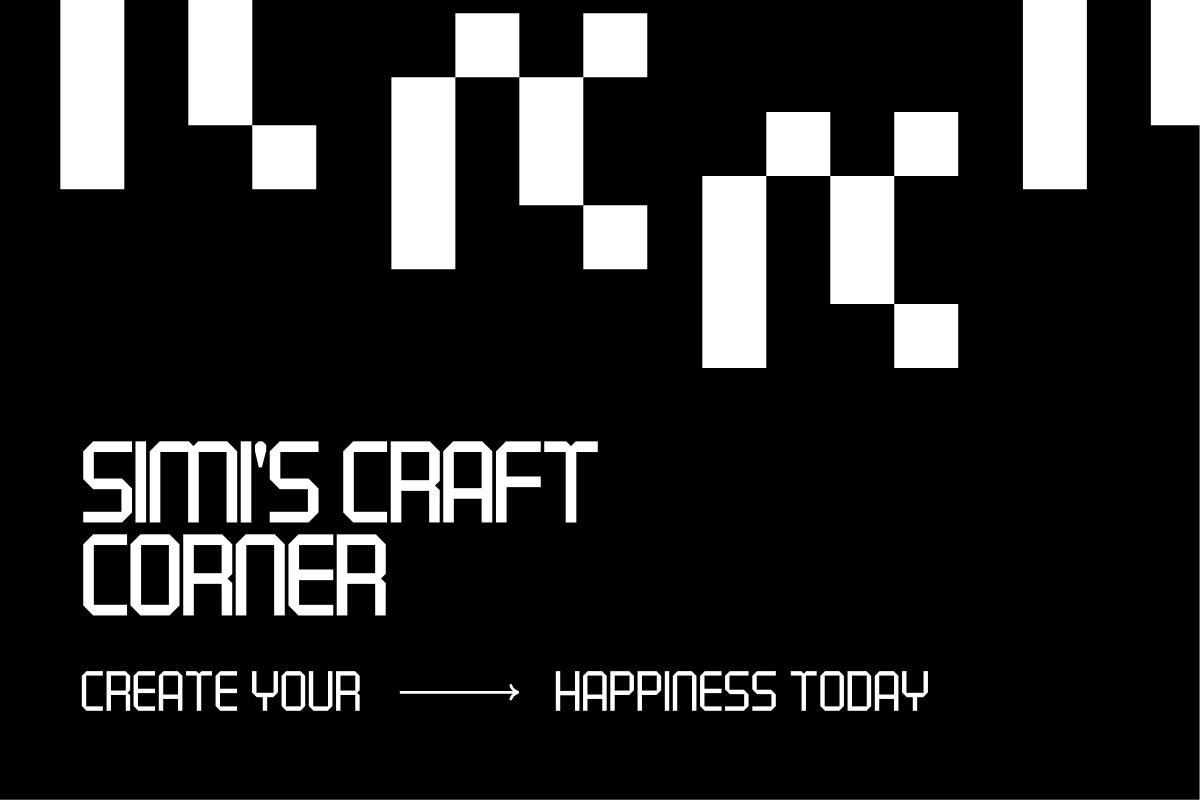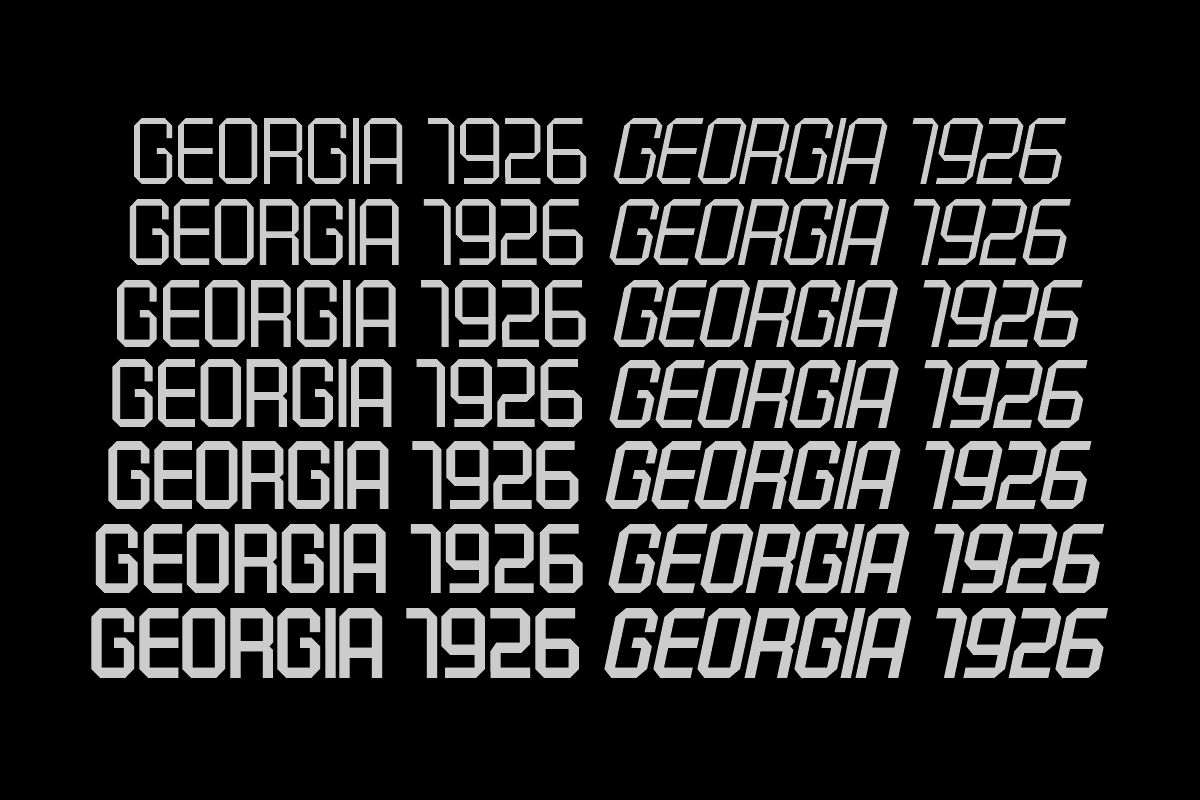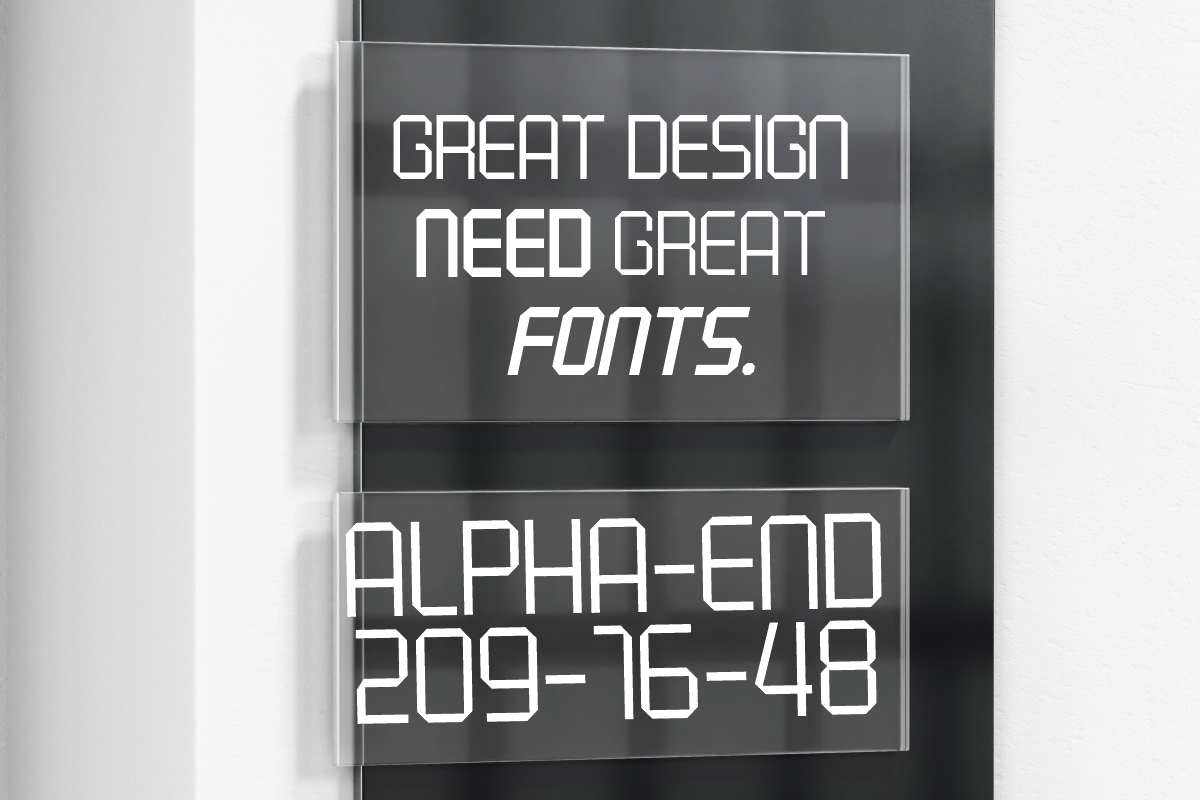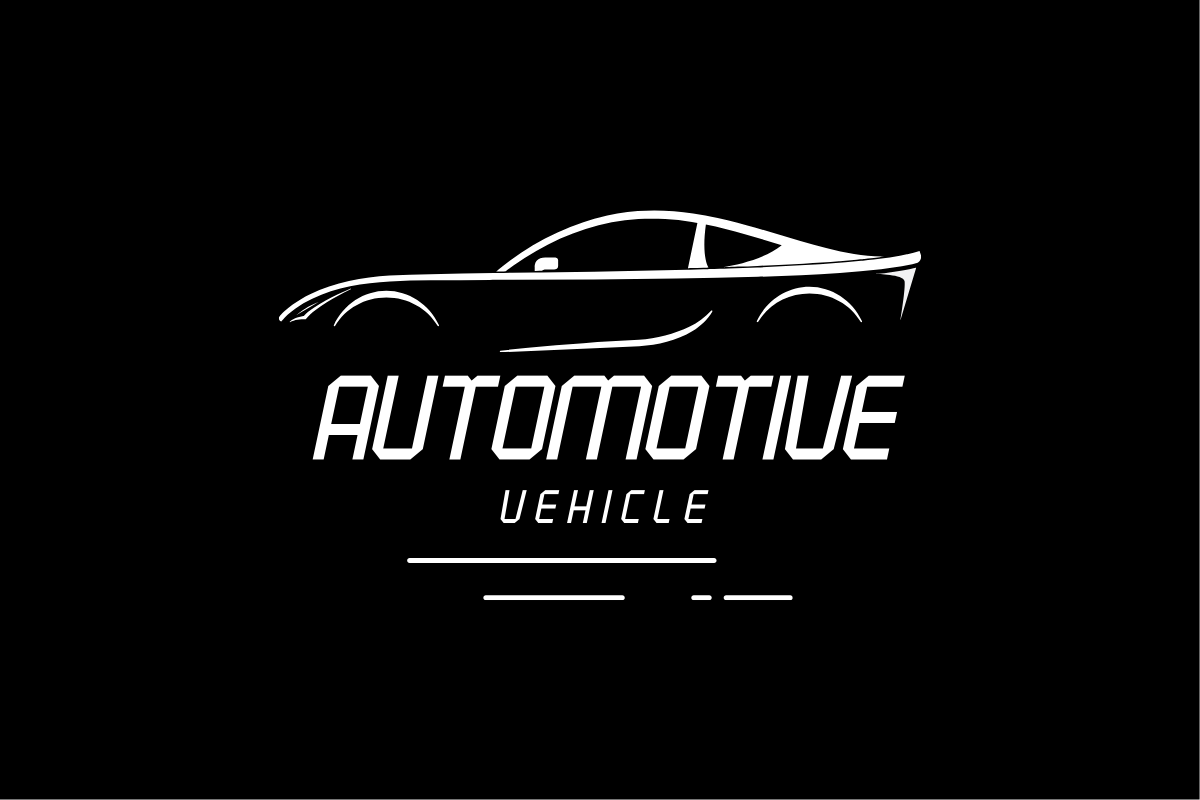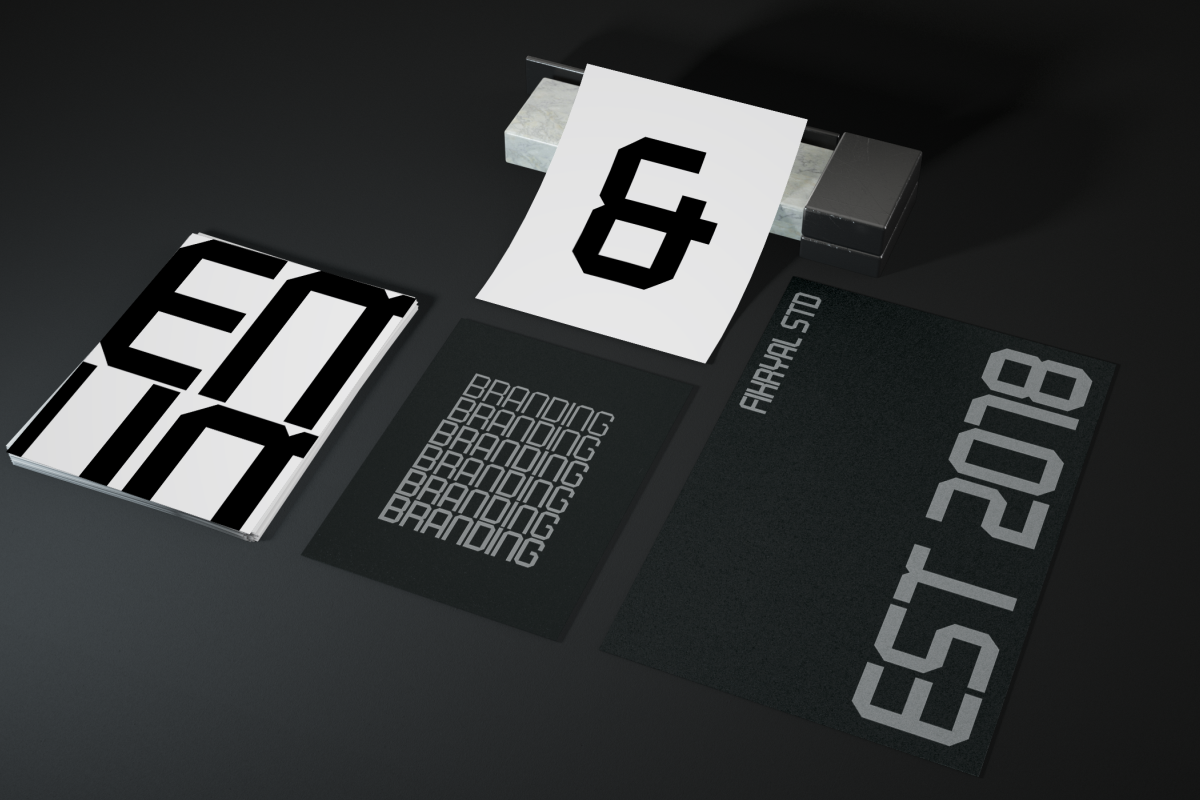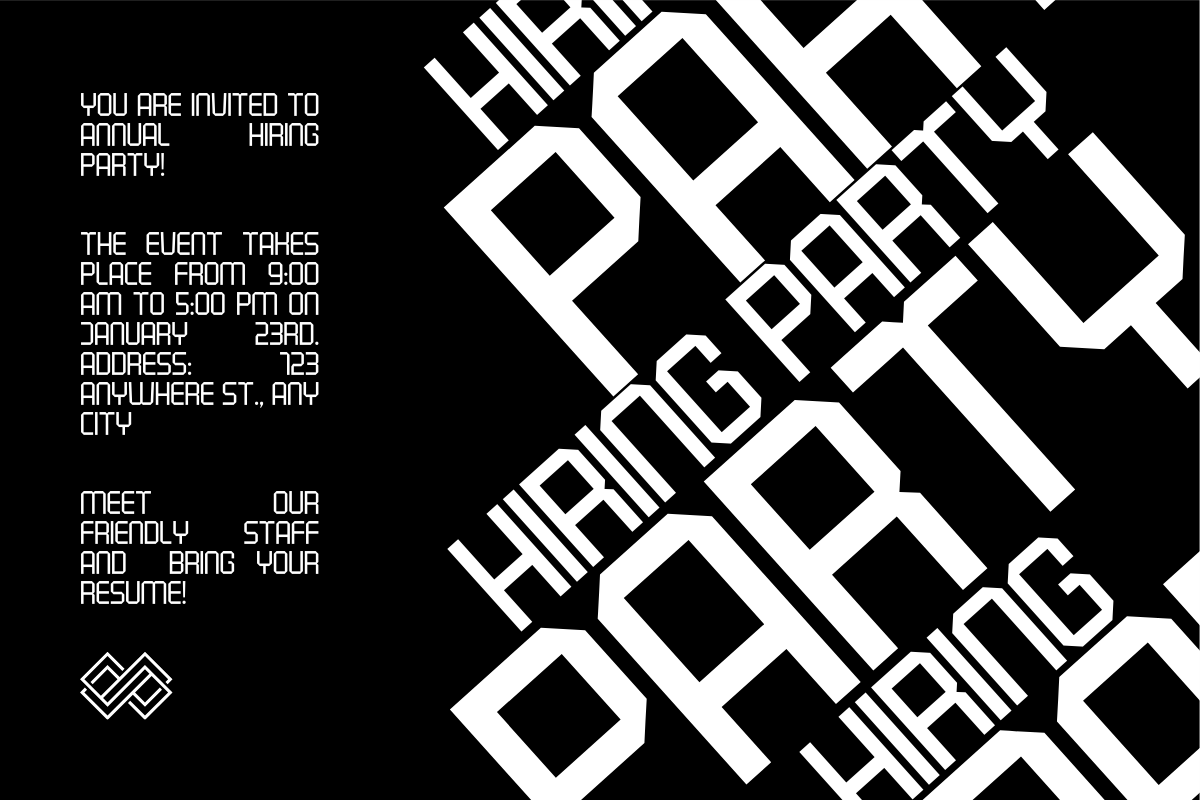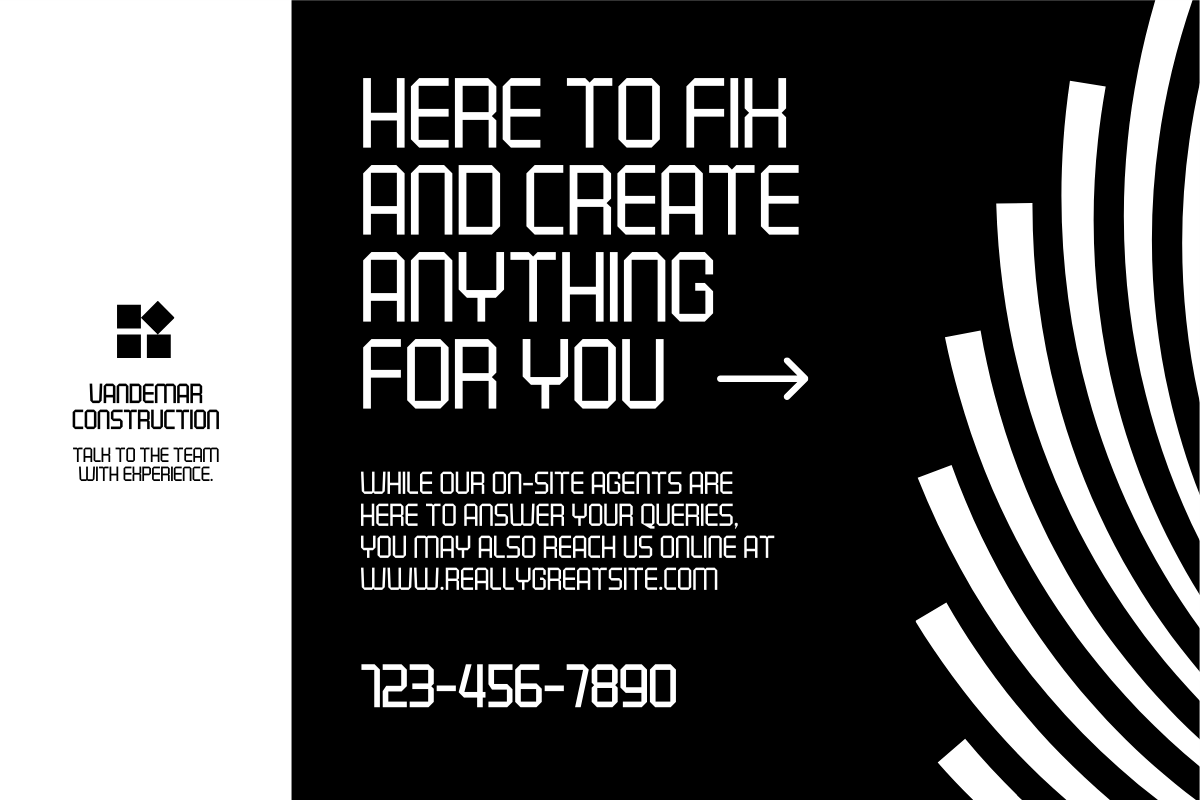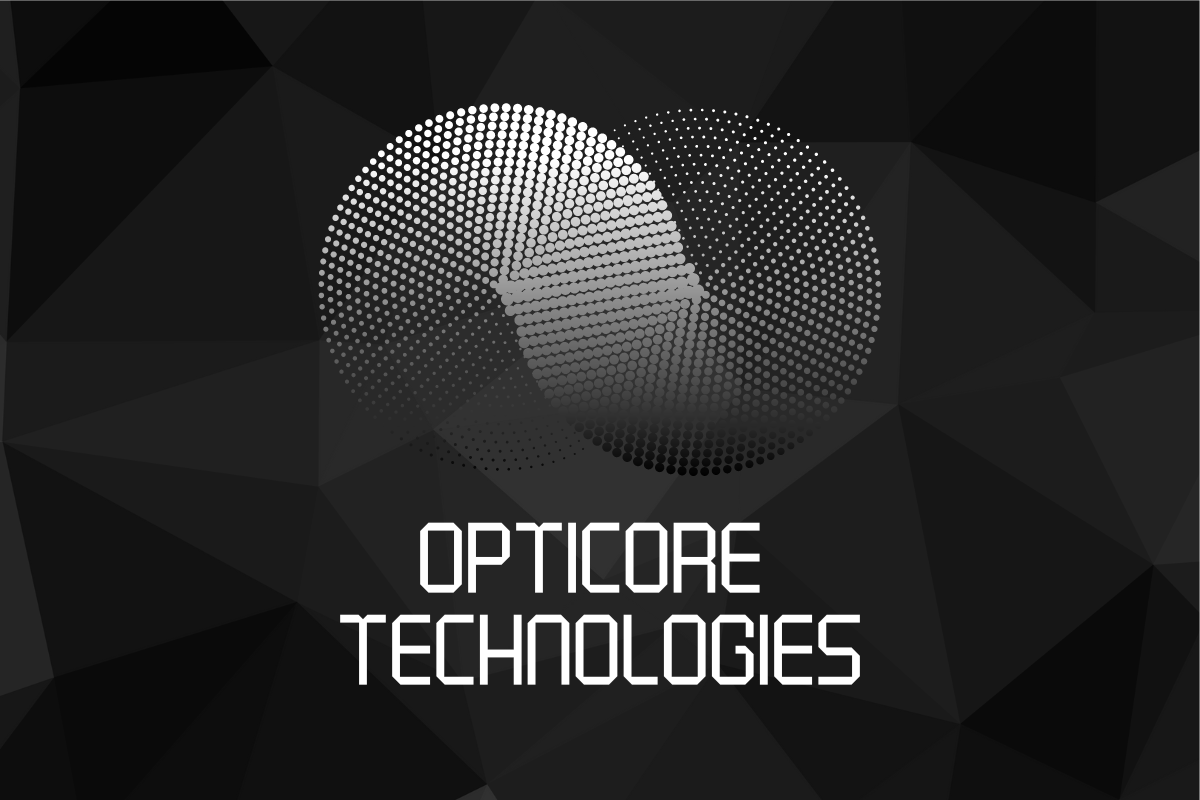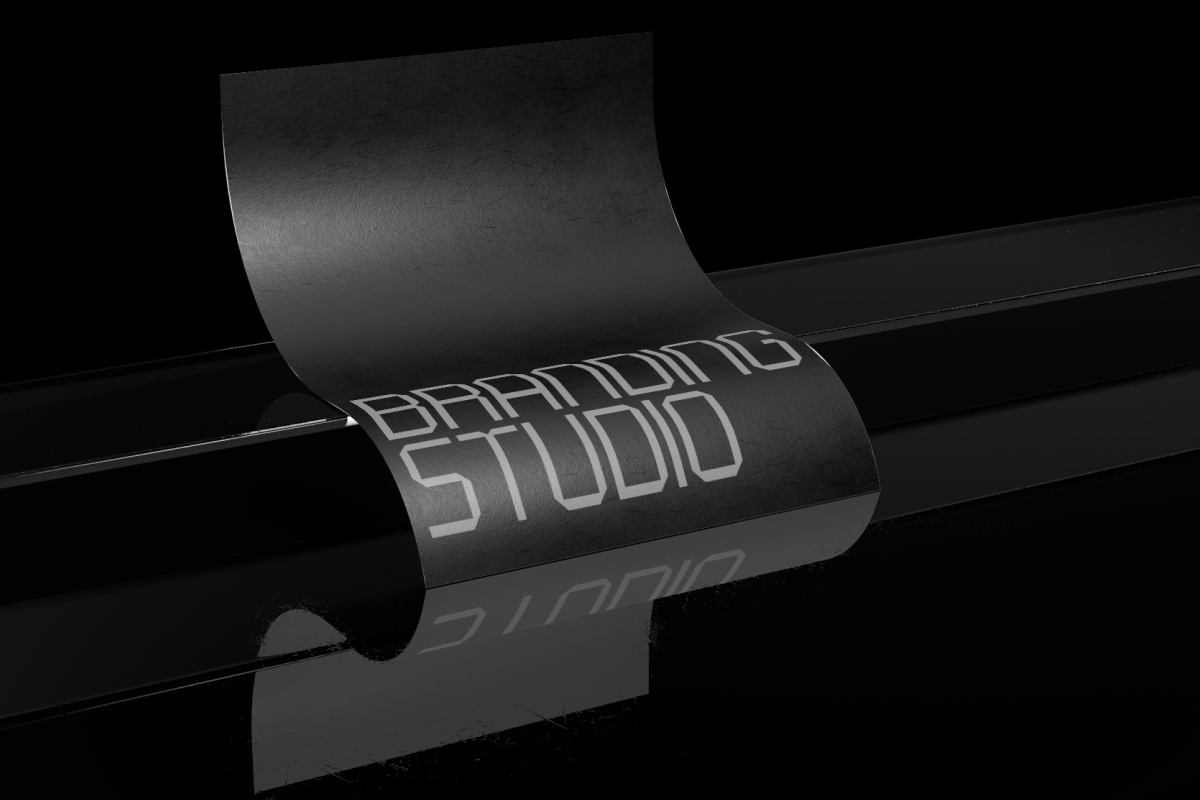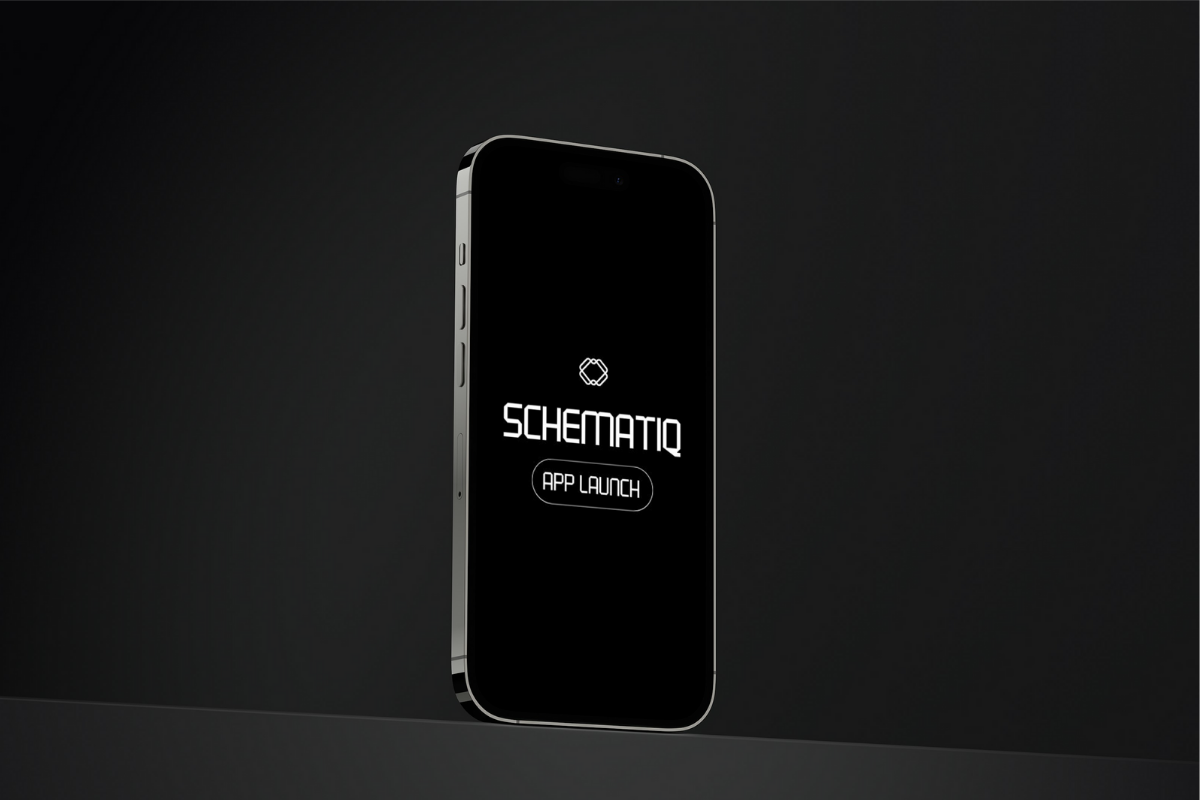
Georgia 1926 – Modern Display Sans
Georgia 1926 is a modern display sans serif typeface with a strong, bold, and tech-inspired design. Perfect for sports, tech, and futuristic branding projects, this all-caps font offers 14 versatile styles ranging from Thin to Black, each with corresponding italics. Ideal for posters, logos, websites, and digital media, Georgia 1926 provides a professional and sleek look with a dynamic edge.